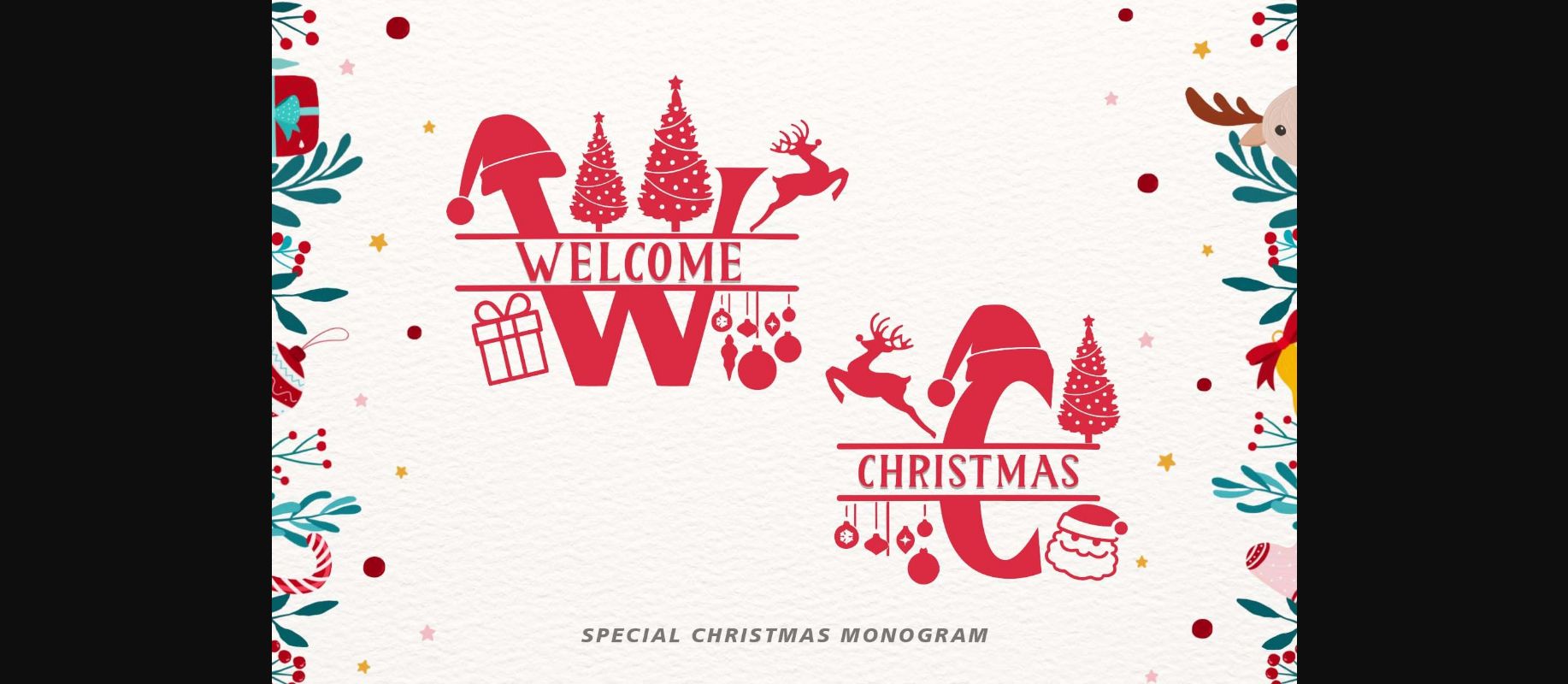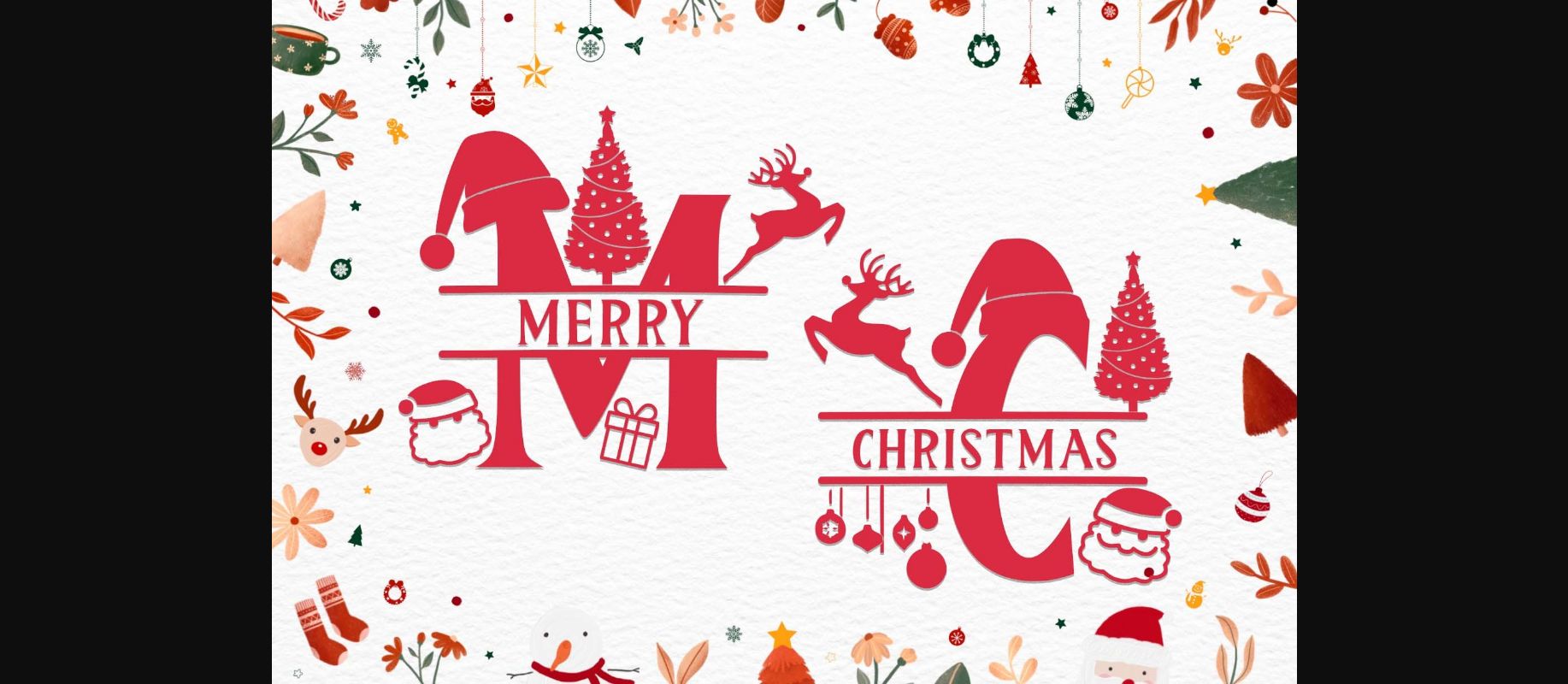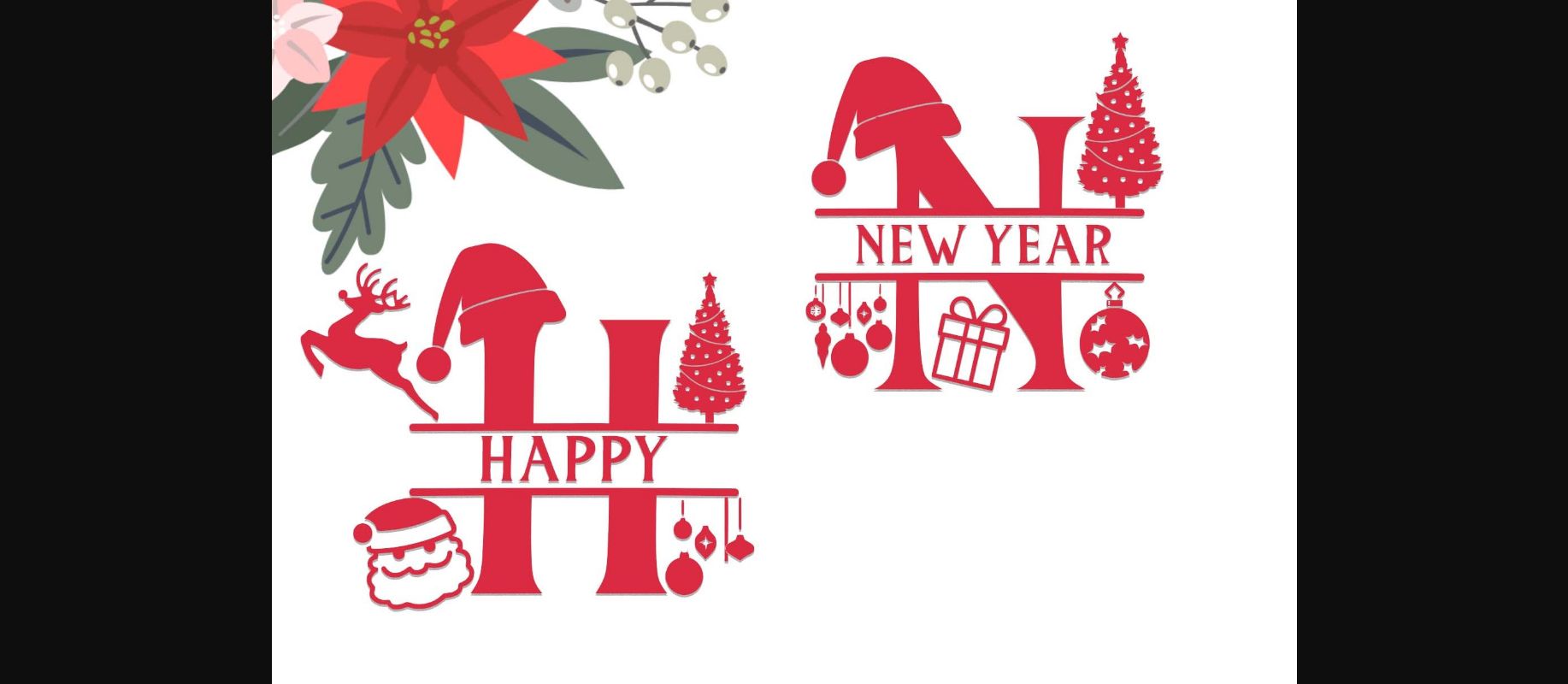
About Welcome Christmas Monogram Font
Welcome Christmas Monogram is a monogram serif font decorated with Christmas-themed shapes. This adorable font is perfect for winter and Christmas designs, monogrammed mugs, tote bags, wall decor, and more!